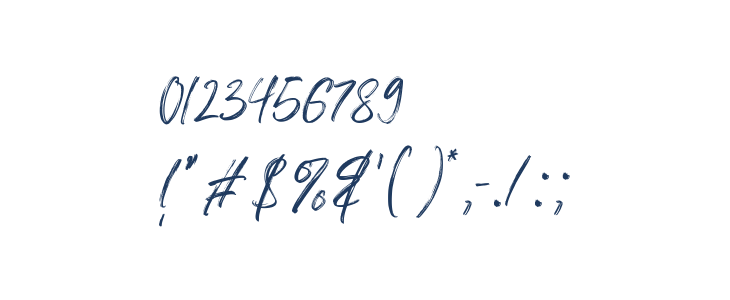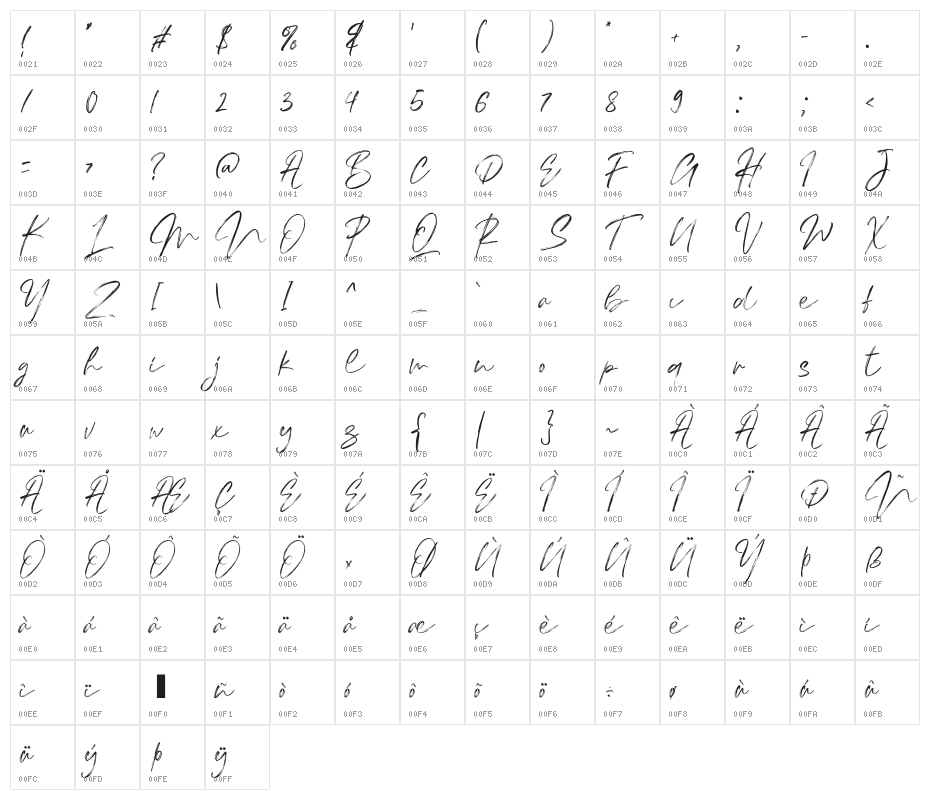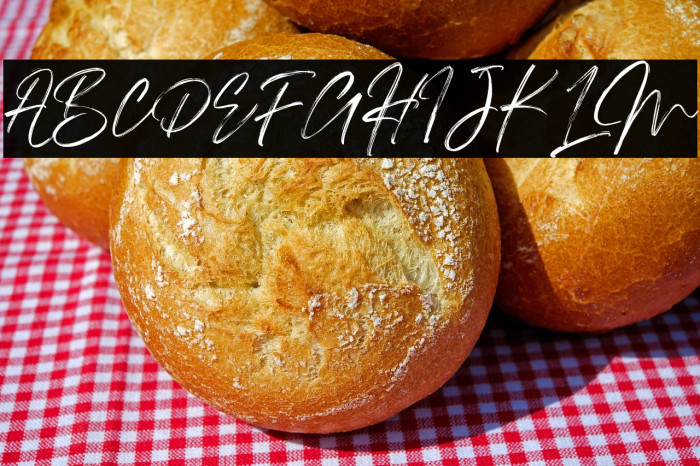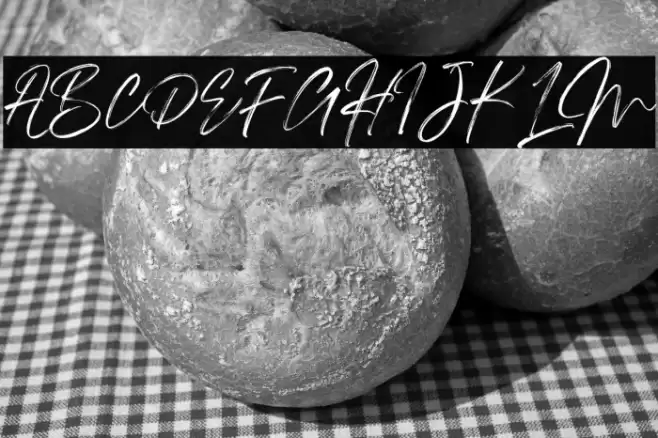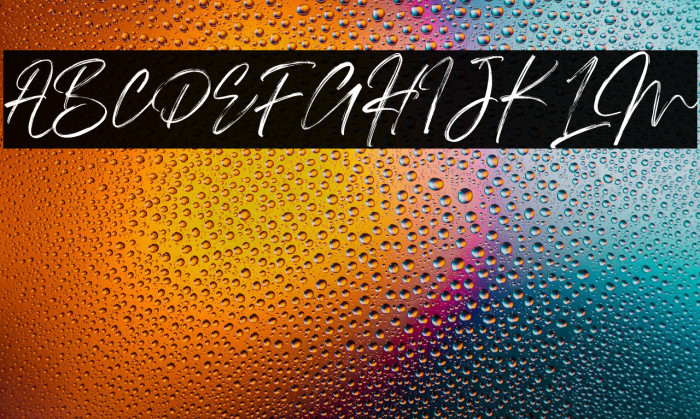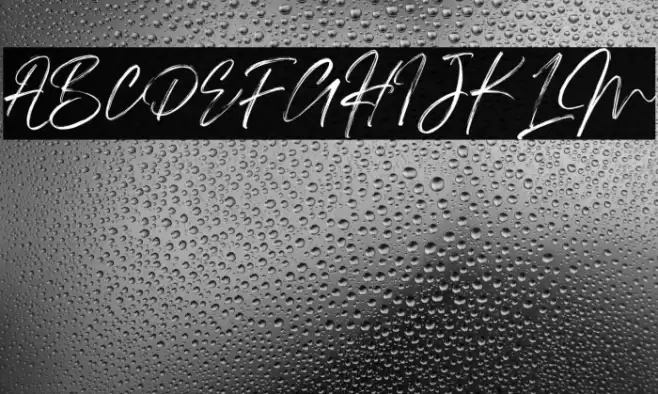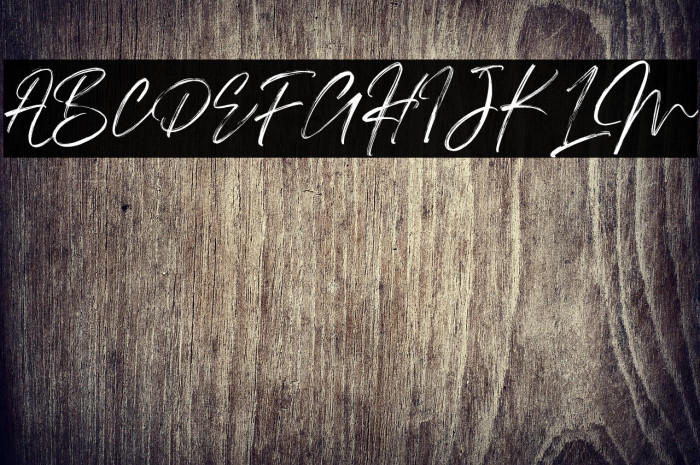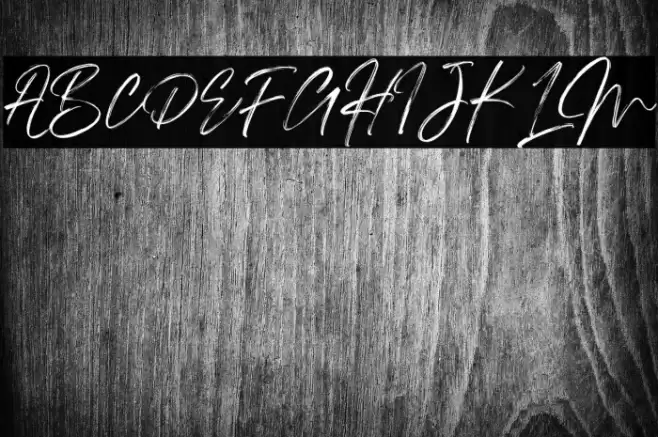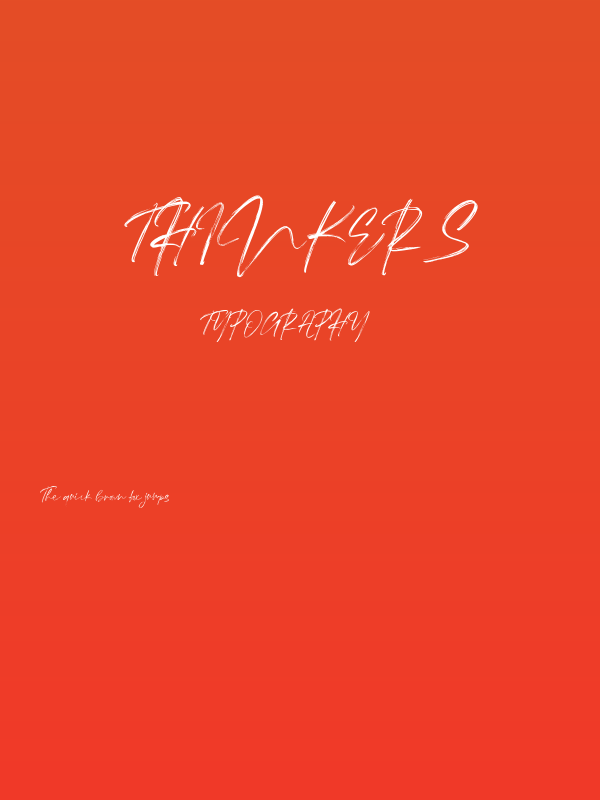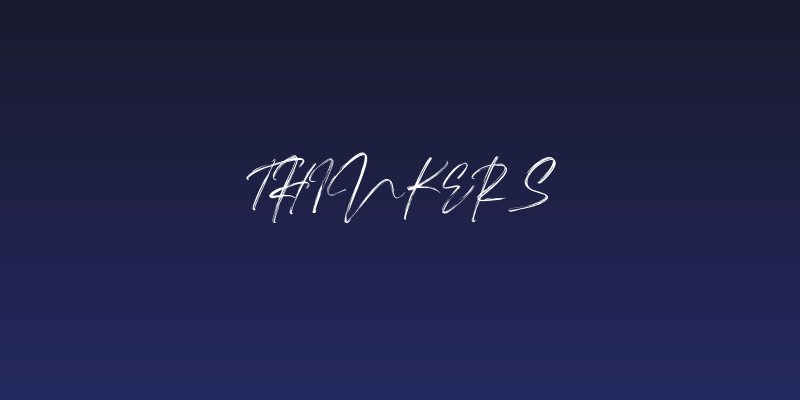
Thinkers Font
Thinkers Description
This font features a dynamic and expressive handwritten style, characterized by fluid, sweeping strokes that convey a sense of movement and energy. The letters are slightly slanted, adding to the casual and informal feel, while maintaining a level of elegance. The uppercase and lowercase letters are well-balanced, with a consistent flow that makes it suitable for creative projects. The numerals and special characters maintain the same lively style, ensuring a cohesive look across all text elements. Its artistic flair makes it ideal for projects that require a personal touch.
| Proposed Projects | Ideal for wedding invitations, greeting cards, branding, and artistic projects. |